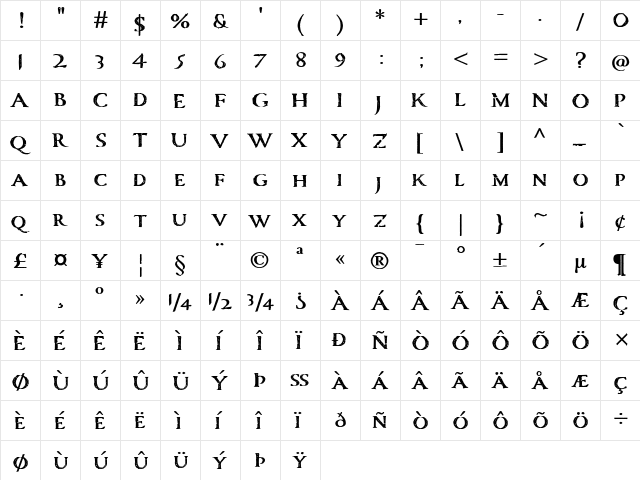
Carta Marina Bold Bold Font Preview
Carta Marina Bold Bold
Carta Marina Bold Bold Font Details
| Foundry | Jeremy Dooley |
Design Context for Carta Marina Bold Typeface
Carta Marina Bold takes a measured approach to typography — its balanced proportions and neutral character make it a reliable workhorse for both digital and print work. The heavy weight commands attention and anchors typographic hierarchies.